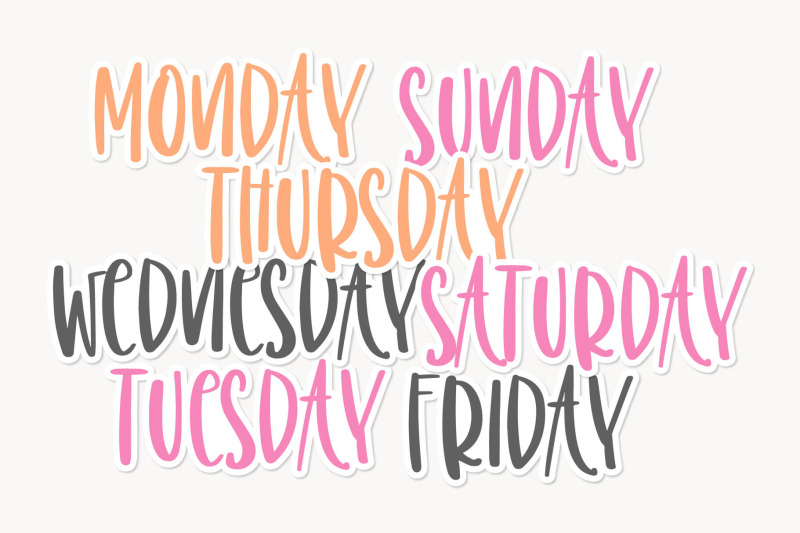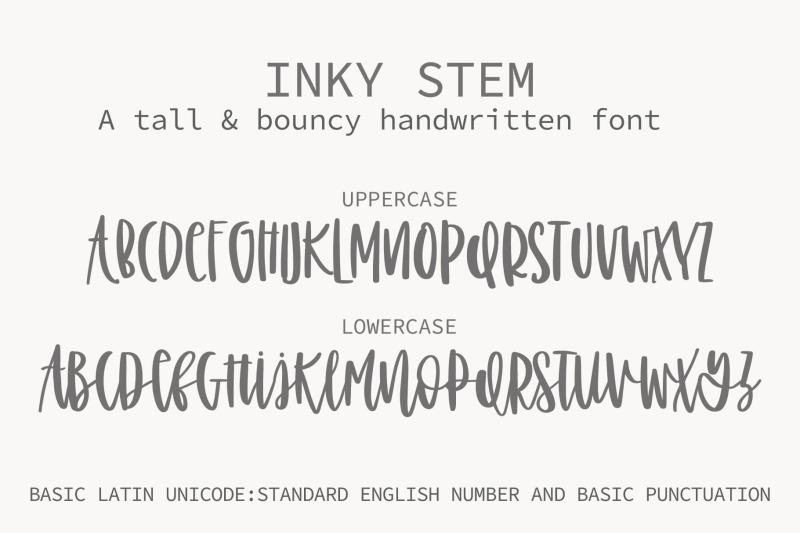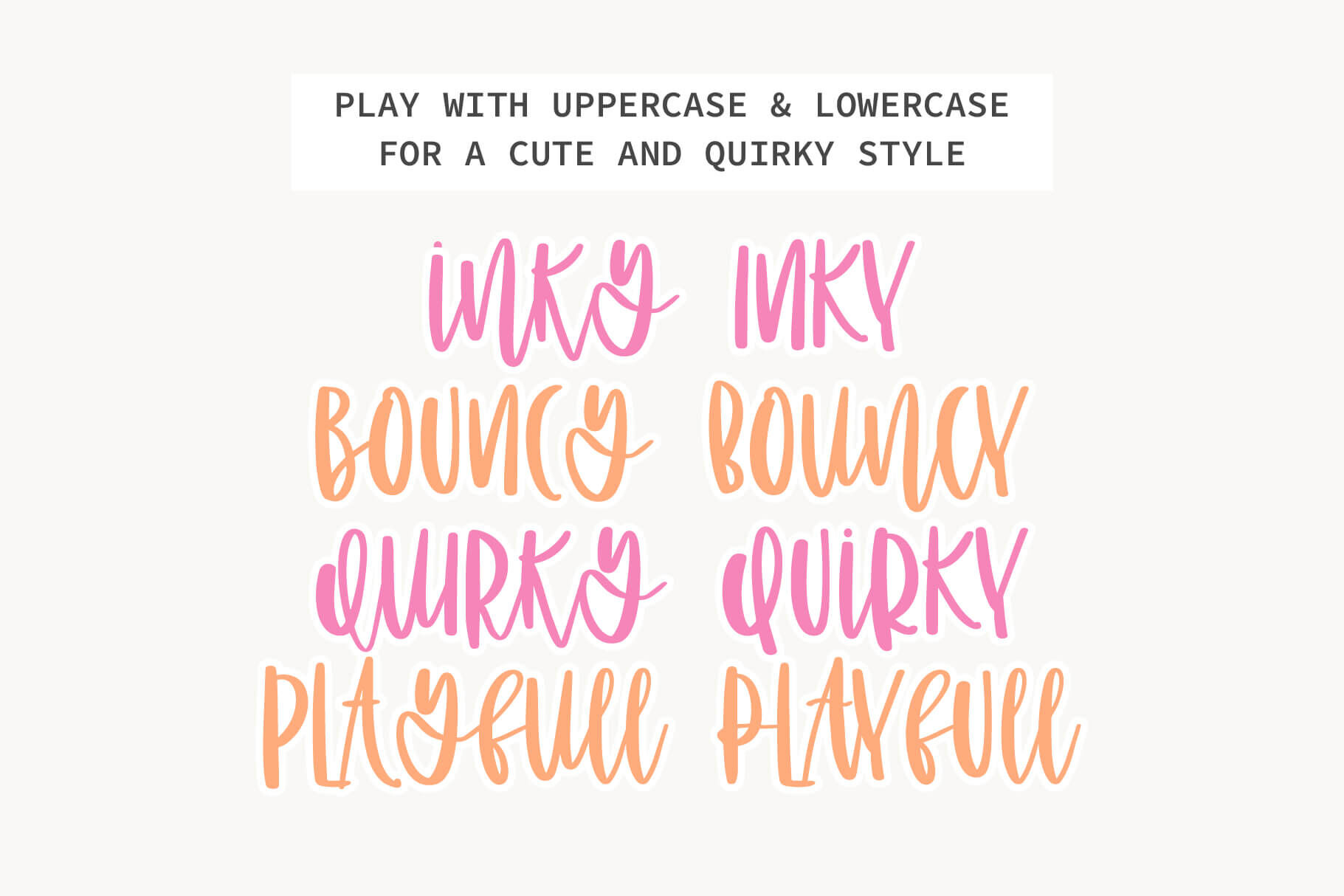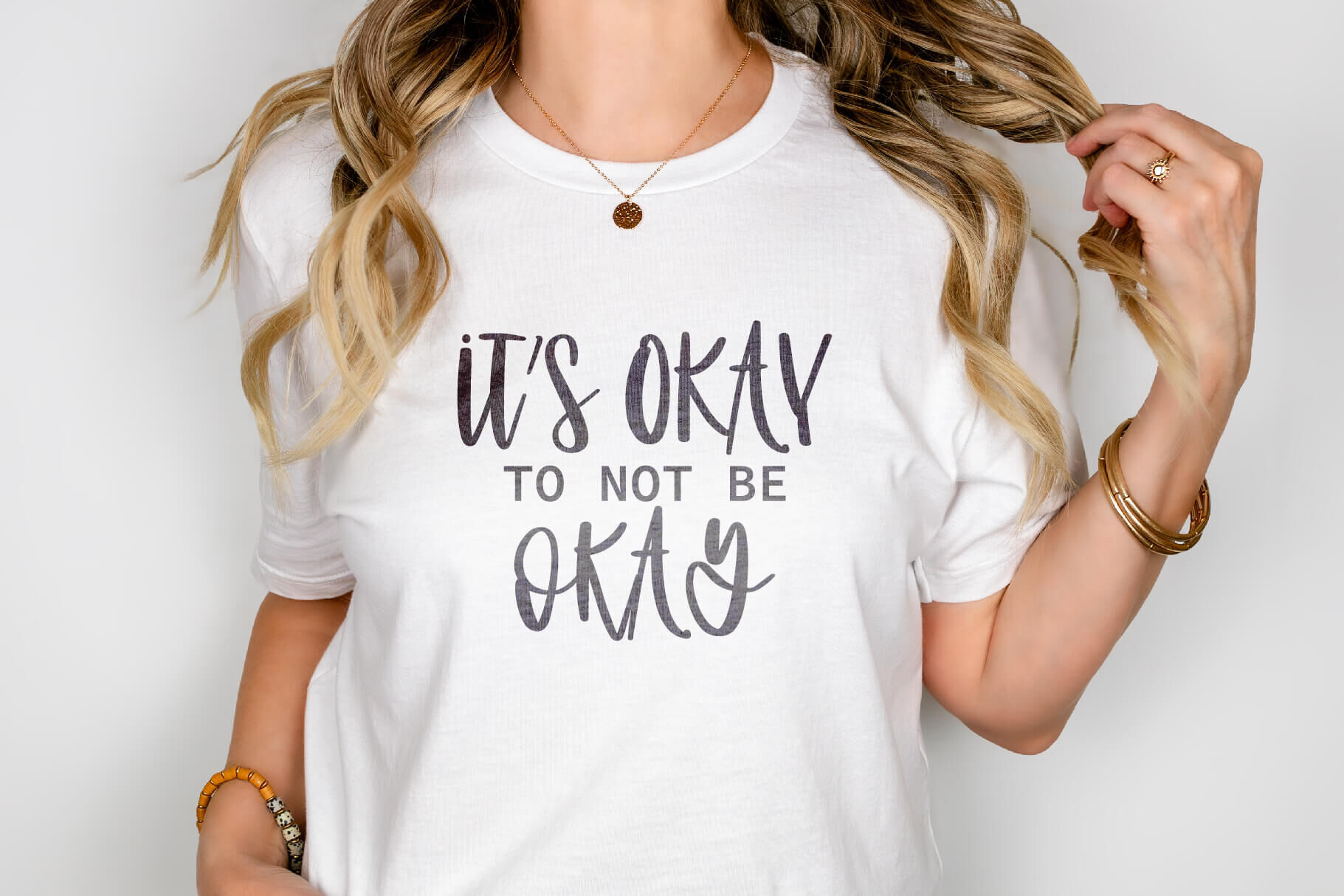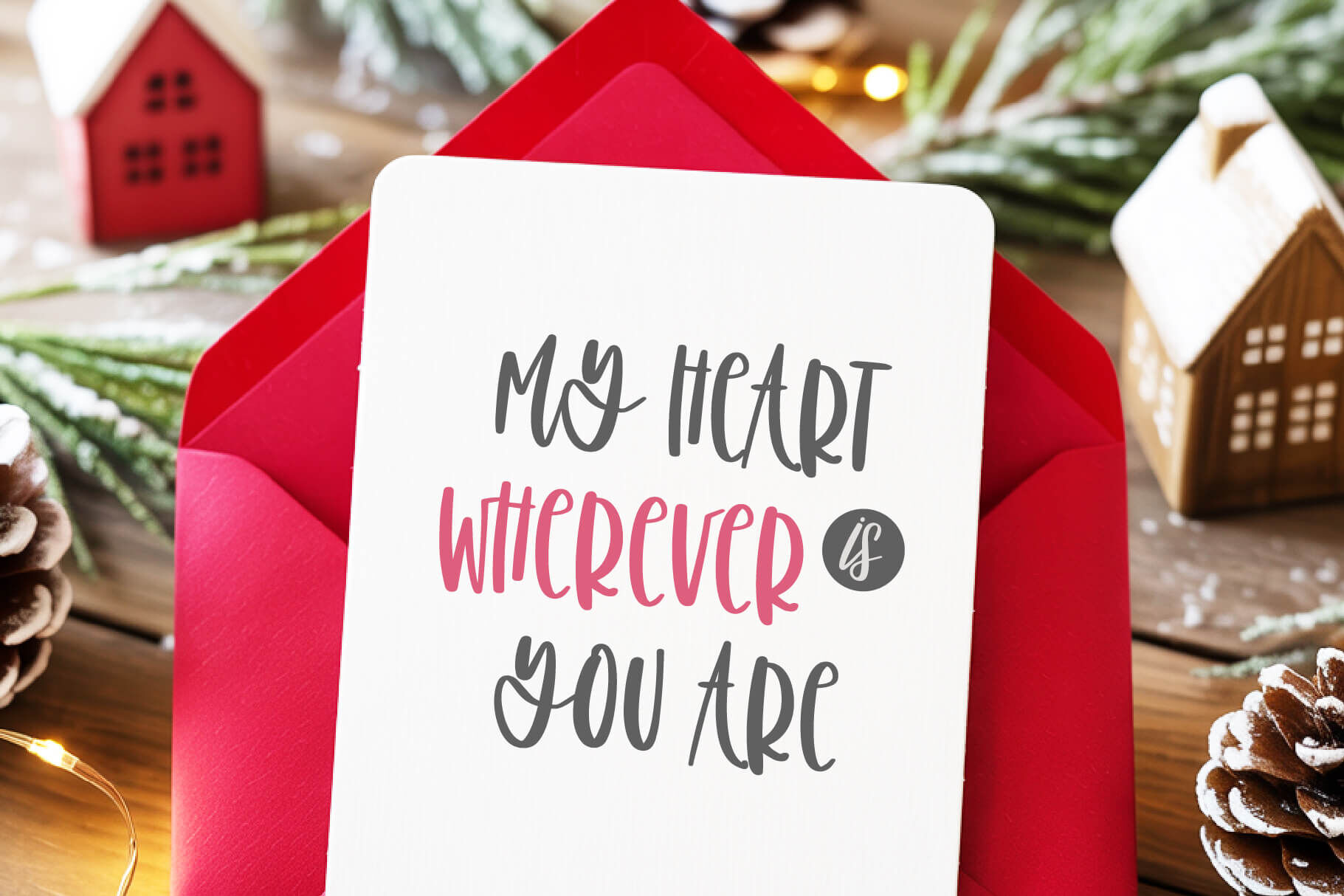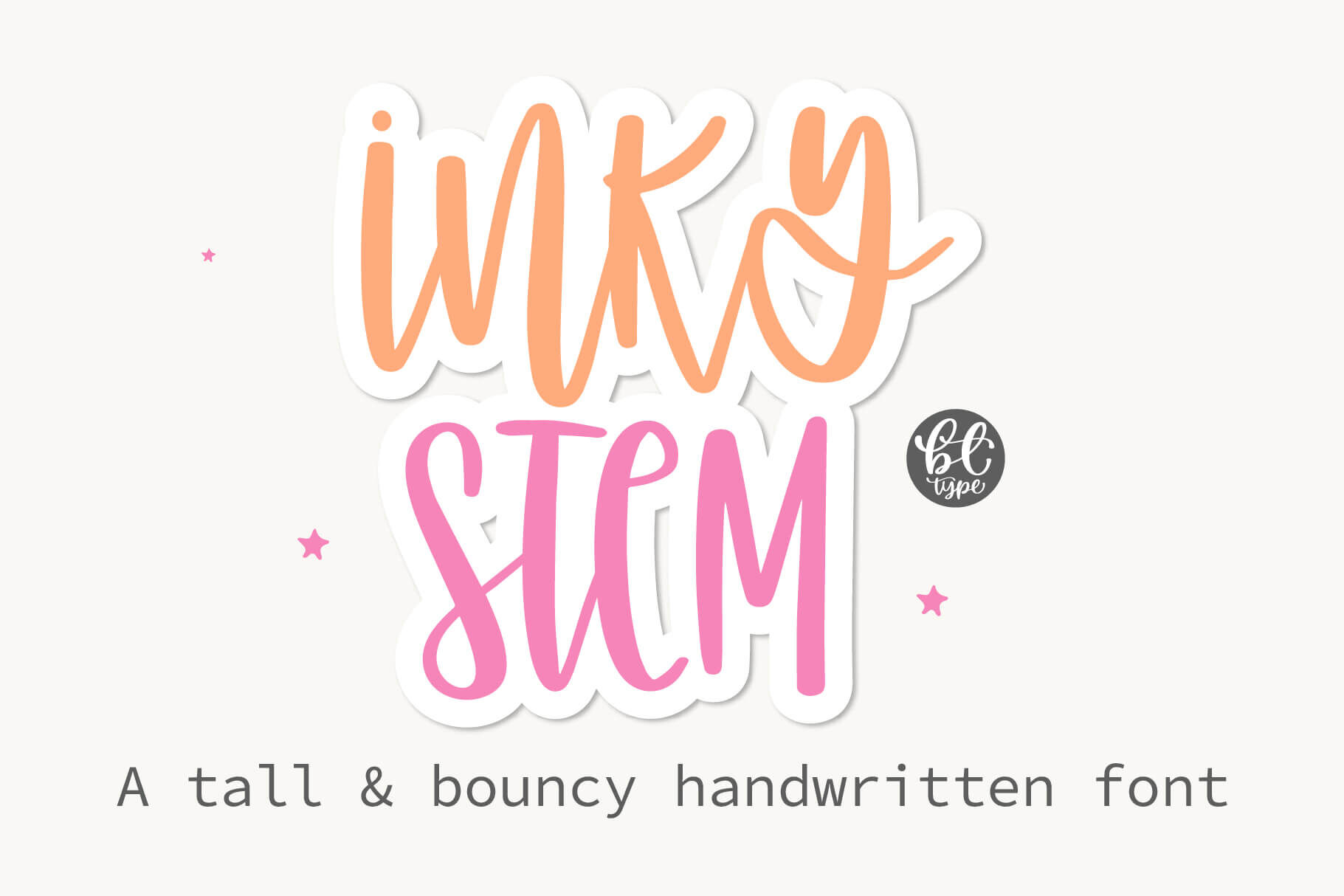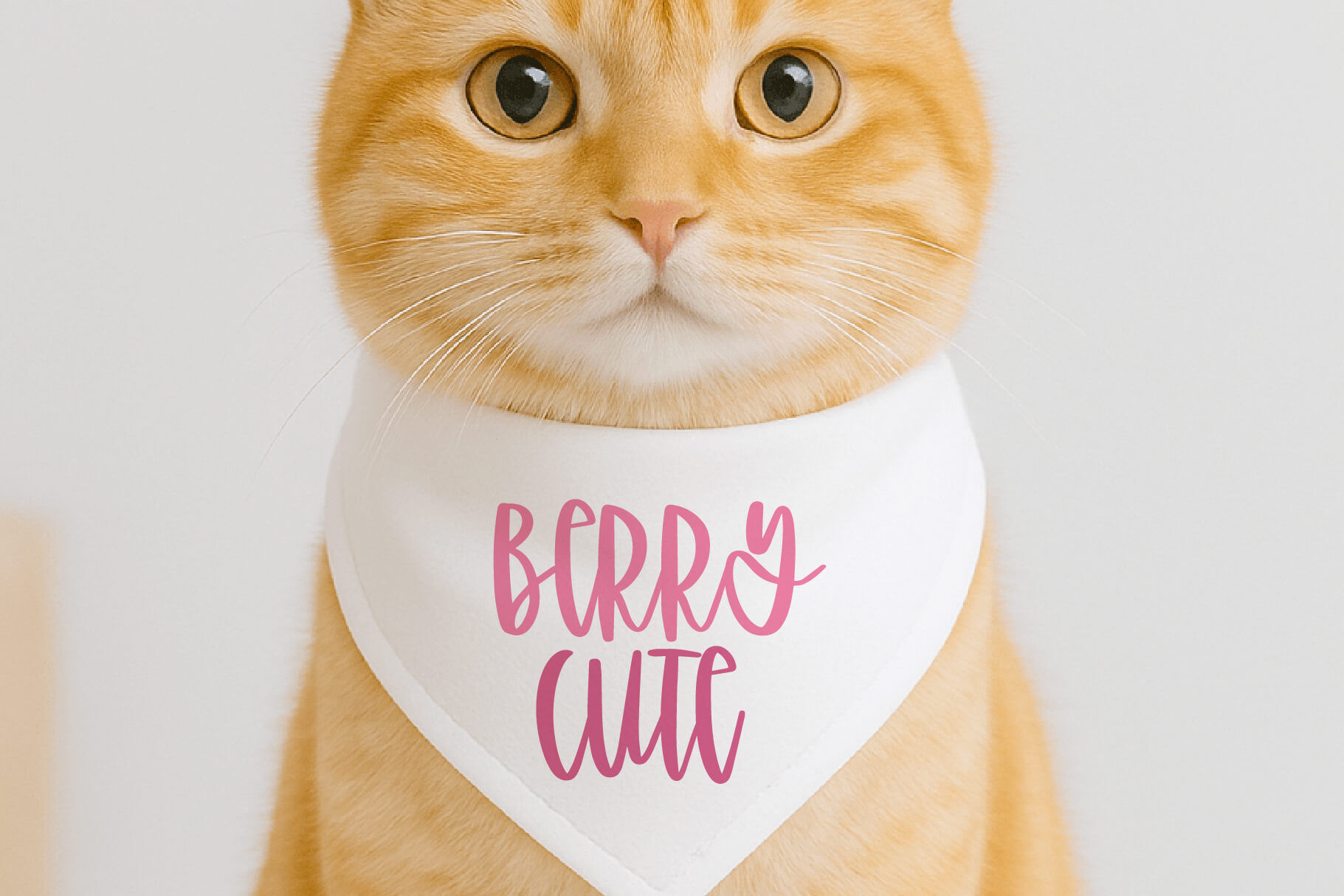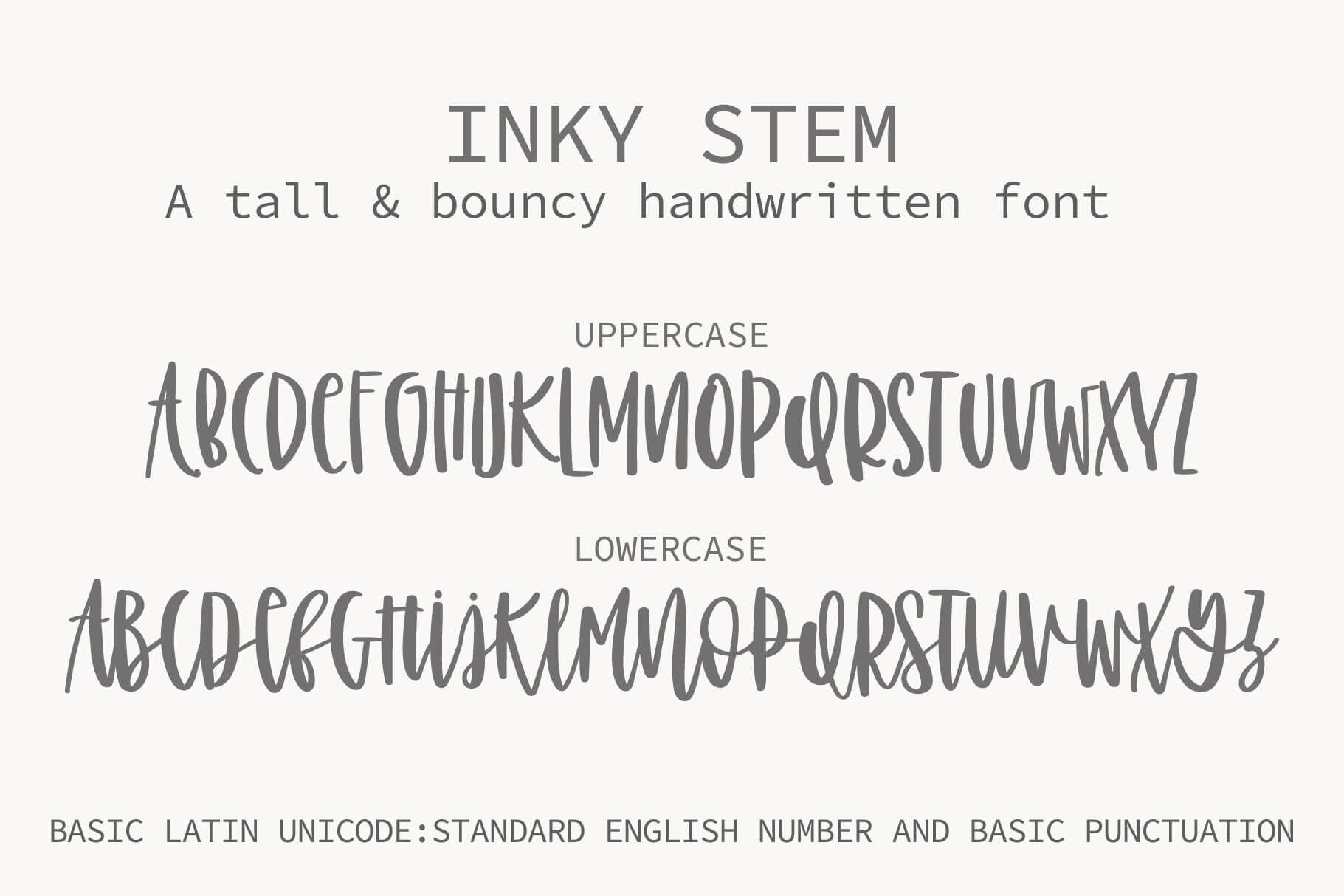
Meet Inky Stem — a quirky handwritten font that blends soft script and minimal sans with the feel of wet ink brush strokes.
Its tall, narrow form and playful bounce let you mix uppercase and lowercase for a custom, hand-lettered look.
Perfect for planner headers, Cricut crafts, shirts, and stickers, this font adds a stylish, casual flair to any design, though best used for titles, not long text.